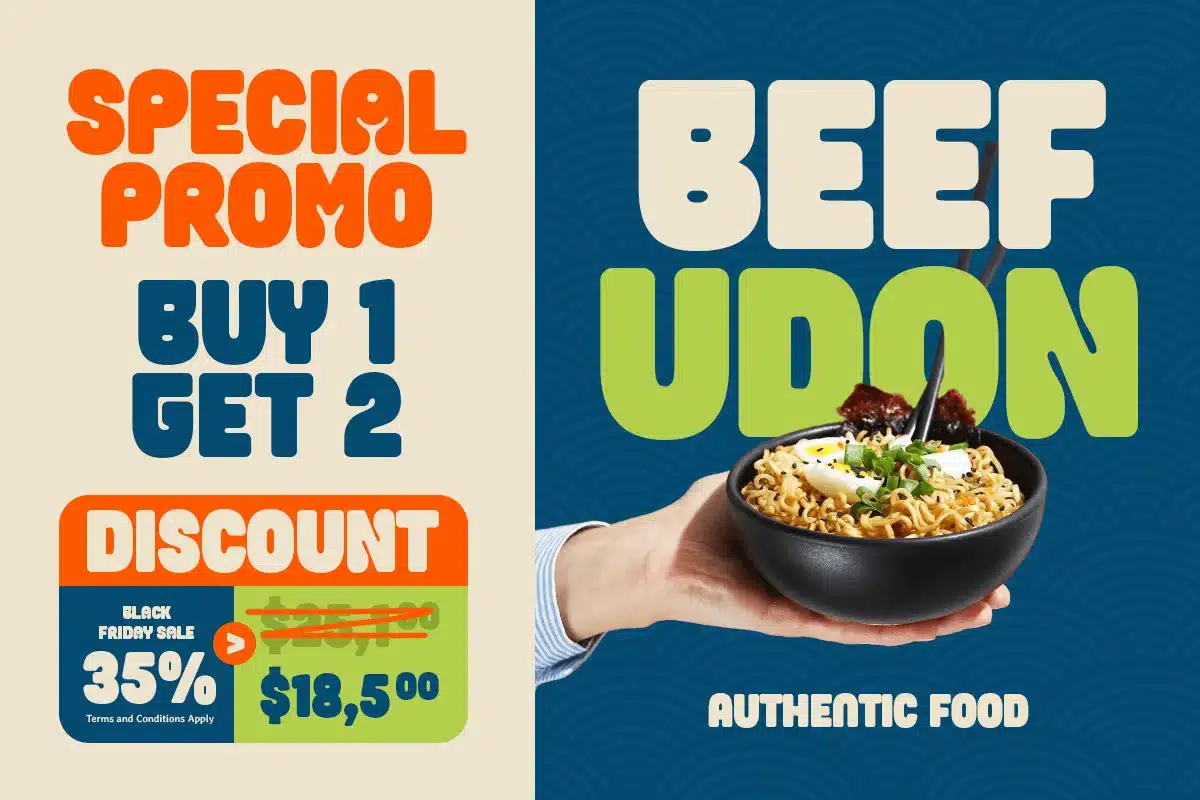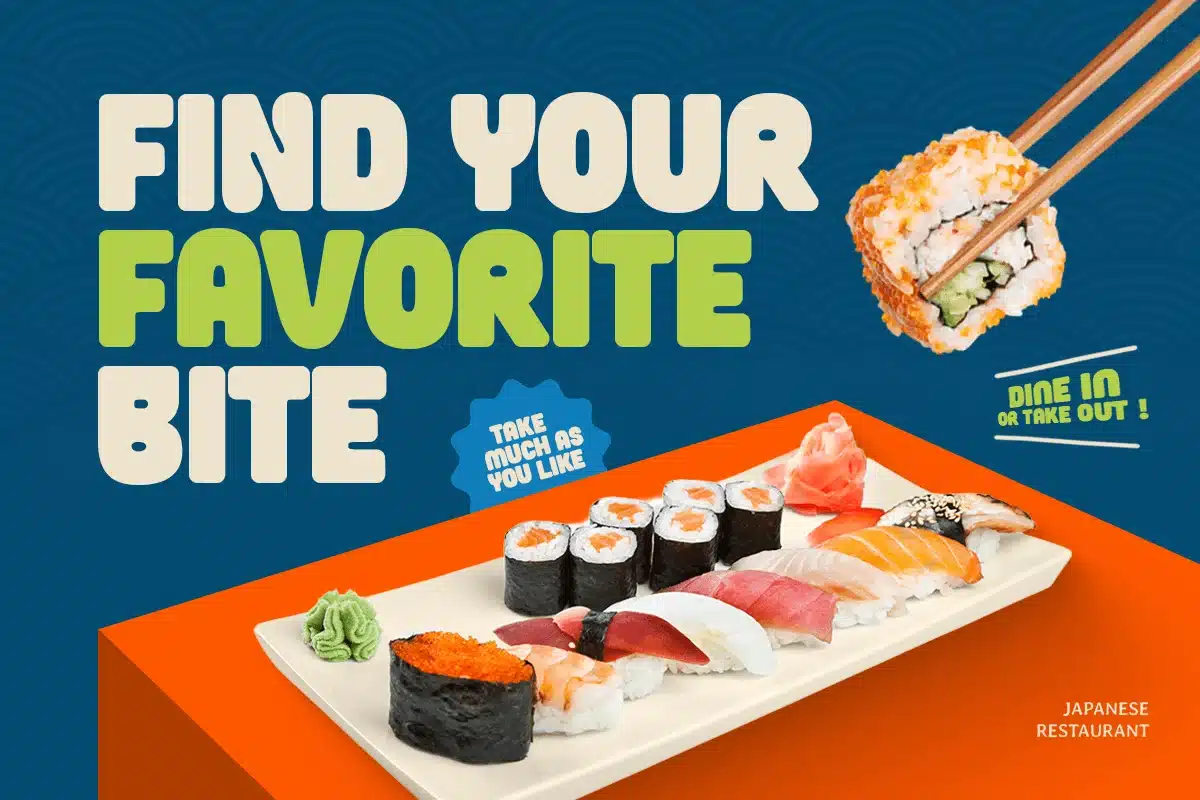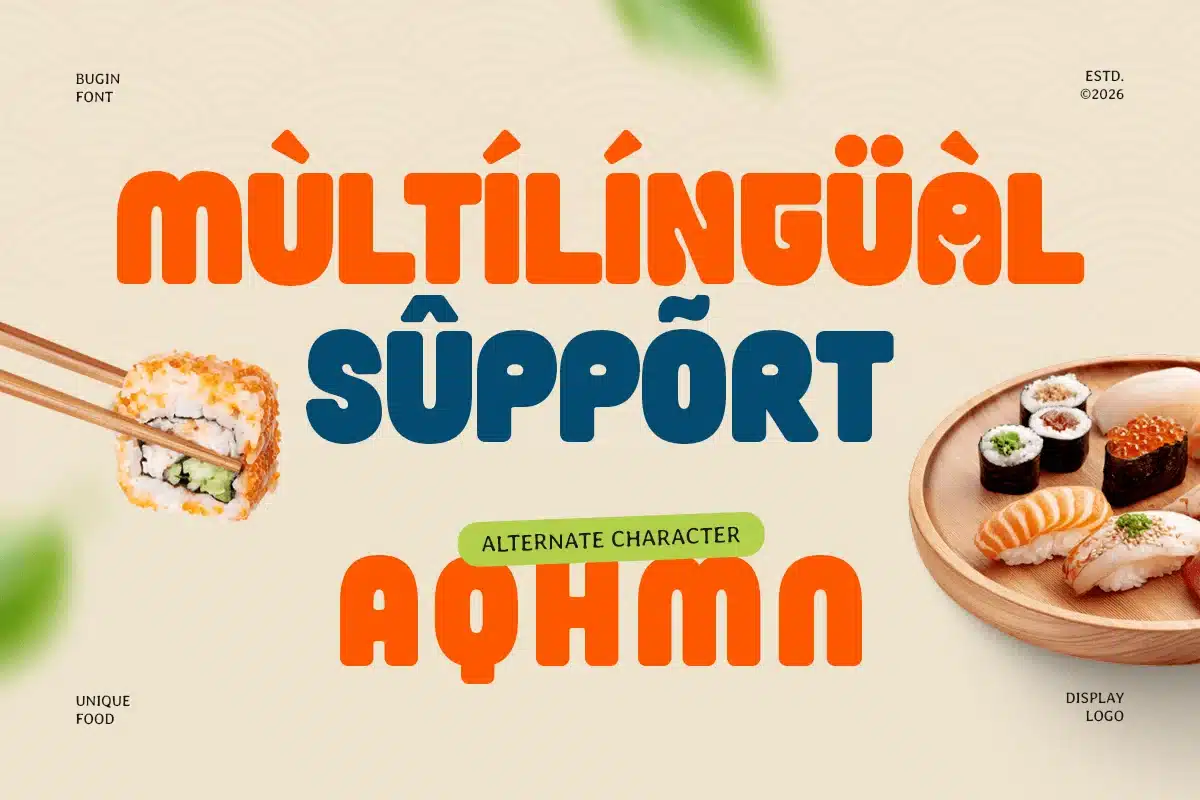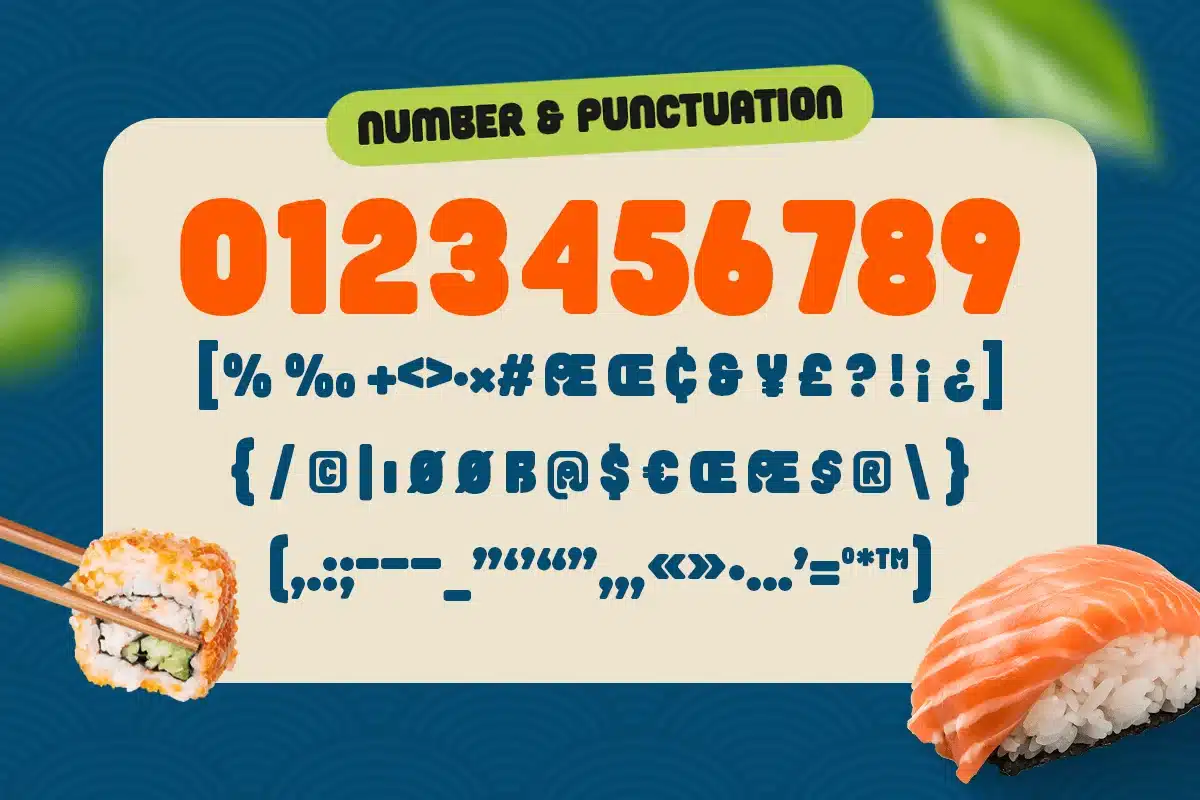
Bugin – Bold Food Display Logo Font
BUGIN is a bold food display logo font designed to bring delicious energy and strong visual flavor to your typography. With thick letterforms, friendly curves, and a bold contemporary attitude, this typeface creates an appetizing tone that feels vibrant, inviting, and instantly memorable.
Built for food-focused branding, BUGIN works beautifully across restaurant logos, café menus, product packaging, snack labels, posters, signage, social media promotions, and digital marketing visuals. Its bold display structure keeps every headline clear and impactful, helping your food brand stand out across both print and digital layouts.
Whether you’re launching a culinary brand, designing menu highlights, creating packaging for snacks or beverages, or building cheerful food campaigns, BUGIN provides a bold typographic foundation that makes every word feel tasty, modern, and full of personality.
Inspiration Behind BUGIN
BUGIN is inspired by modern food packaging and bold culinary branding—where thick shapes and playful rhythm create a more appetizing and approachable identity. The design focuses on strong visual weight and smooth flow to support food-related projects with a fresh, flavorful, and brand-ready look.
BUGIN Font Features:
- Bold food display letterforms with appetizing logo-ready character
- Perfect for restaurant branding, menus, and packaging design
- Strong readability for product names and promotional headlines
- Friendly shapes for inviting and delicious typography
- OpenType features for polished professional typesetting
- Food logos, restaurant branding, and café identity systems
- Menu headers, specials boards, and promotional graphics
- Packaging, labels, stickers, and snack product branding
- Posters, signage, banners, and in-store marketing visuals
- Social media promotions and food campaign designs
Make your food branding look irresistibly bold with BUGIN—a food display logo font built for delicious visual impact. 🍔✨